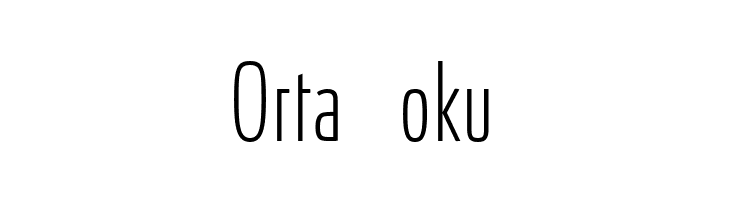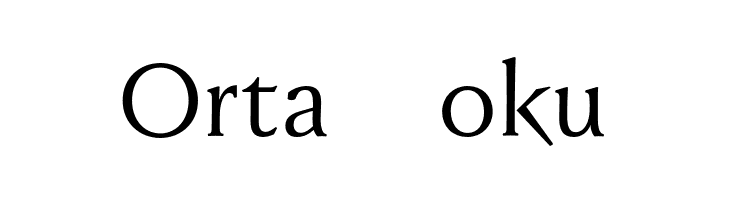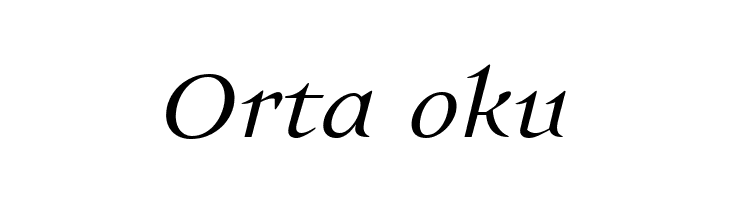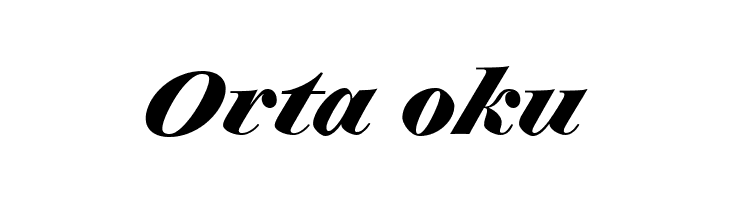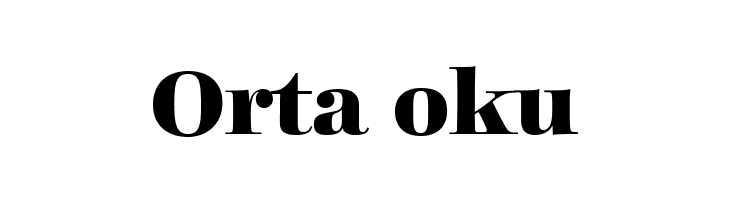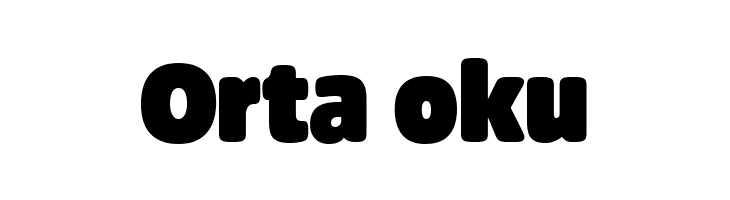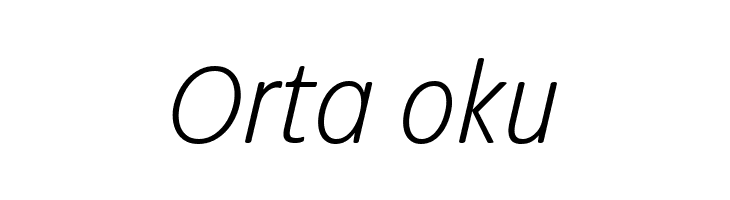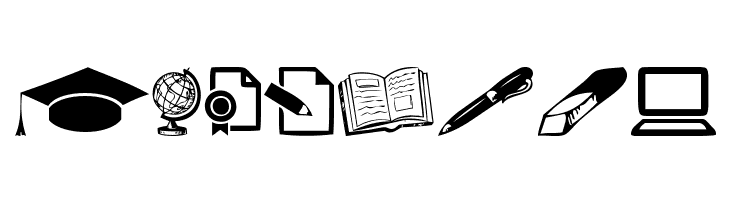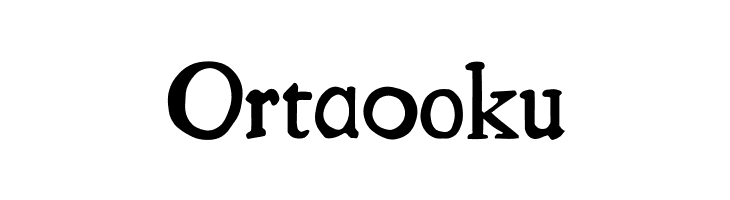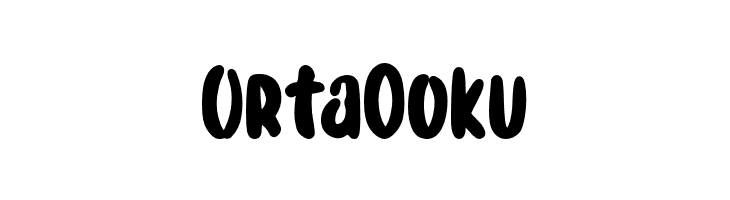
( ingoFonts - Ingo Zimmermann - www.ingofonts.com )
A sleek, modern, light italic font with medium contrast and smooth strokes.
( ingoFonts - Ingo Zimmermann - www.ingofonts.com )
A clean, modern sans-serif font with low contrast and rounded edges.
( ingoFonts - Ingo Zimmermann - www.ingofonts.com )
A bold, heavy font with wide character spacing and a modern aesthetic.
( ingoFonts - Ingo Zimmermann - www.ingofonts.com )
A bold, modern font with thick, uniform strokes and tight spacing.
( ingoFonts - Ingo Zimmermann - www.ingofonts.com )
A sleek, modern light italic font with elegant slanted characters.
( ingoFonts - Ingo Zimmermann - www.ingofonts.com )
A bold, geometric typeface with clean lines and a modern aesthetic.
( ingoFonts - Ingo Zimmermann - www.ingofonts.com )
A modern, italic sans-serif font with clean lines and balanced proportions.
( ingoFonts - Ingo Zimmermann - www.ingofonts.com )
Bold, italicized font with a modern and dynamic style.
( ingoFonts - Ingo Zimmermann - www.ingofonts.com )
A modern, clean sans-serif font with geometric letterforms.
( ingoFonts - Ingo Zimmermann - www.ingofonts.com )
A bold, italicized font with a modern and sleek design.
( ingoFonts - Ingo Zimmermann - www.ingofonts.com )
A bold, modern font with thick, uniform strokes and high legibility.
( ingoFonts - Ingo Zimmermann - www.ingofonts.com )
A bold, modern sans-serif font with clean lines and a strong presence.
( ingoFonts - Ingo Zimmermann - www.ingofonts.com )
A bold, modern font with thick, uniform strokes and a geometric design.
( ingoFonts - Ingo Zimmermann - www.ingofonts.com )
A clean, modern sans-serif typeface with consistent stroke weight and balanced spacing.
( memesbruh03 - Aaron D. Chand )
A pixelated, retro-style font with a blocky, grid-based design.
( Blue Jay Font Studio - katzfonts.50megs.com/bj1.html )
A decorative font with swan motifs and blackletter lowercase, ideal for creative projects.
( DaShiz )
A clean, outlined font mimicking traditional school handwriting with a casual yet structured look.
( DaShiz )
A clean, legible handwriting font with smooth, flowing strokes.
( DaShiz )
A clean, outlined handwriting-style font with a casual slant.
( DaShiz )
A clean, handwritten-style font with smooth, flowing lines and a friendly appearance.
( Digital Magic - www.graphicdesignplus.com/helen/digitalmagic/ )
Hand-drawn educational and academic-themed icon set.
( Duchet, Inc. - duchet.wallinside.com )
A bold, decorative font with playful cutout designs and high contrast.
( Edelweiss - www.lehrerweb.at/index.php?page=schulschriften )
A cursive, handwritten font with smooth, connected letters and a classic school script style.
( Fresh Fonts - formerly at eccodomani.org/freshfonts/ )
A playful and whimsical font with unique, exaggerated character shapes.
( London's Letters - www.londonsletters.com/ )
A playful, decorative font with cartoon illustrations within each letter.
( London's Letters - www.londonsletters.com/ )
A playful dotted cursive font with bee illustrations, ideal for children's projects.
( Paul Grosse - grosse.is-a-geek.com/paul/ttf01.htm )
A playful, rounded handwritten font with a friendly and whimsical style.
( Pixel Sagas - www.pixelsagas.com )
A bold, modern set of atomic and directional symbols with high contrast.
( Fonts by RMIT University - Sans Forgetica is designed for non-commercial use only. It is bound by a creative commons, non-commercial, attributed (CCBYNC) license. )
A bold, experimental sans-serif font with gaps and slants for enhanced memory retention.
A classic serif font with elegant, elongated letterforms and high contrast strokes.
A modern, rounded font with uniform stroke width and excellent readability.